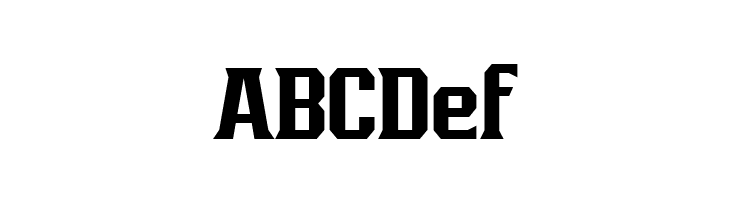
• BronzierMedium
A bold, angular serif font with a vintage yet modern appeal.
• BronzierMedium
A bold, geometric font with a vintage industrial feel.